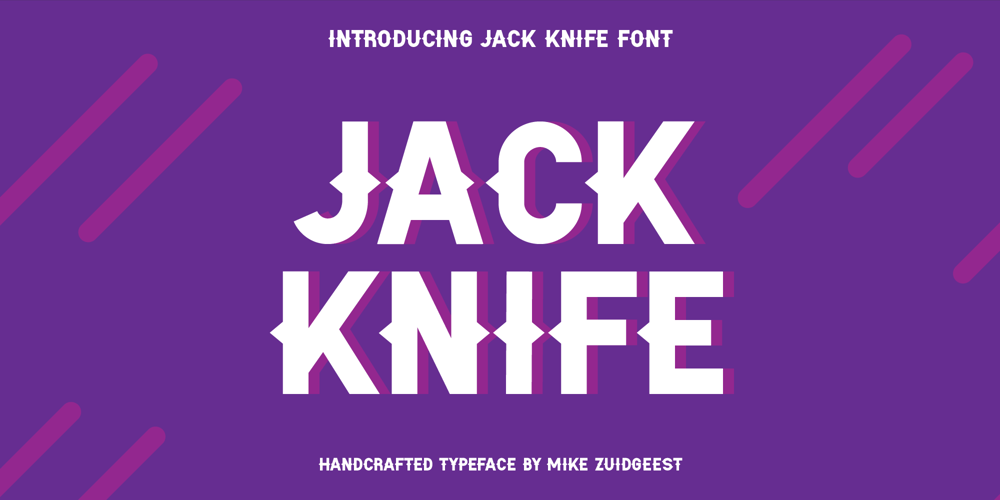
Jack Knife Font Family was designed by Mike Zuidgeest and published by Mike Zuidgeest. Jack Knife contains 1 styles and family package options. The “Jack Knife” font is a unique, handcrafted font that perfectly captures the spirit of the medieval time period. With its spiky, pointy design, this font exudes strength, courage, and boldness – making it the perfect choice for anyone looking to add a touch of daring to their brand.The sharp, jagged edges of the “Jack Knife” font give it a rugged, rustic feel that is both timeless and modern. Its bold, thick strokes make it easy to read even from a distance, while the intricate details and delicate curves add a touch of elegance and sophistication.Whether you’re looking to create a bold, daring logo for a whisky brand or add a touch of adventure to your design, the “Jack Knife” font is the perfect choice. Its unique design and versatile style make it suitable for a wide range of projects, from branding and packaging to advertising and social media.So if you’re looking for a font that embodies the spirit of the medieval period and exudes strength, courage, and boldness, look no further than the “Jack Knife” font – the perfect choice for anyone who wants to make a bold statement with their design.